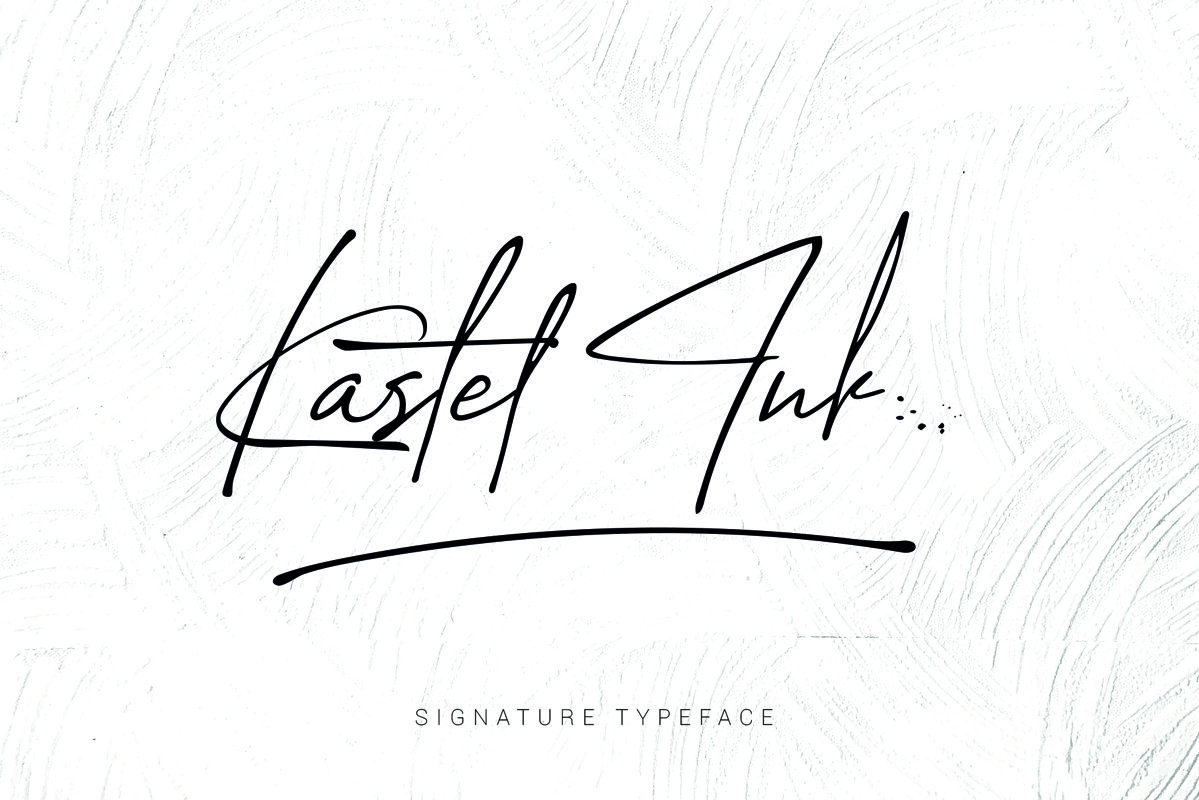
kastel Ink Script Font
Let me introduce you the font Kastel Ink  Script . It flows like a signature while you type it. It really shows the art of hand-work. It is very legible even though its nature looks like it has extreme lines. It is really unique in this regard. Awesome! Isn't it? :)
-Uppercase
-Lowercase
-Numbers and Symbols
-Alternate Characters
-Ligatures
-Swashes
-Splashes
-Multiilingual